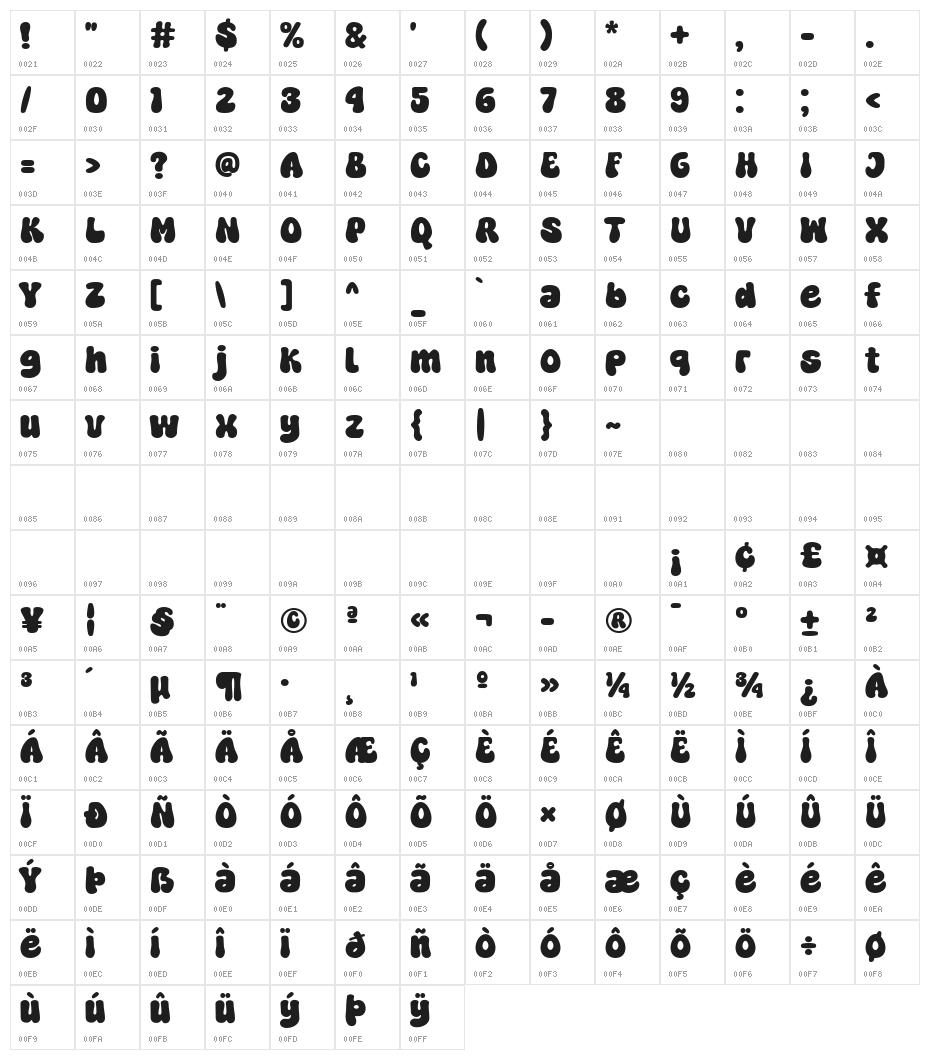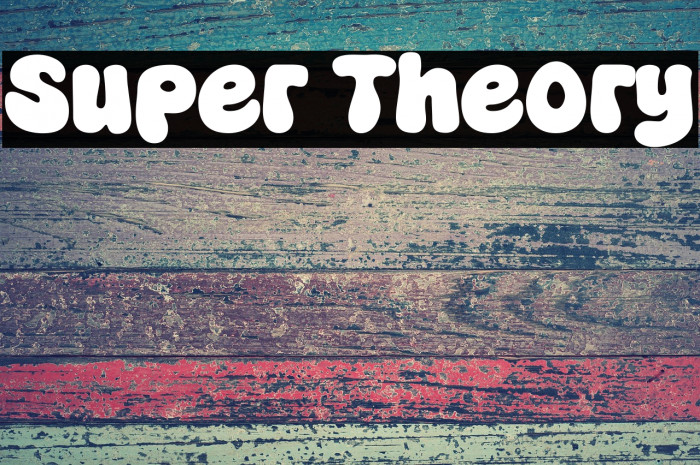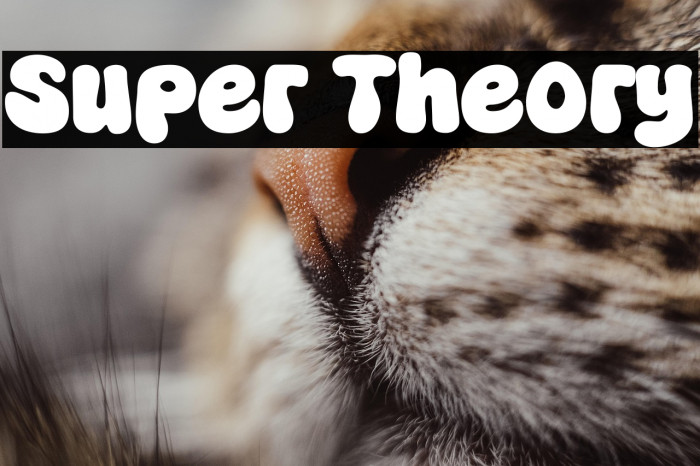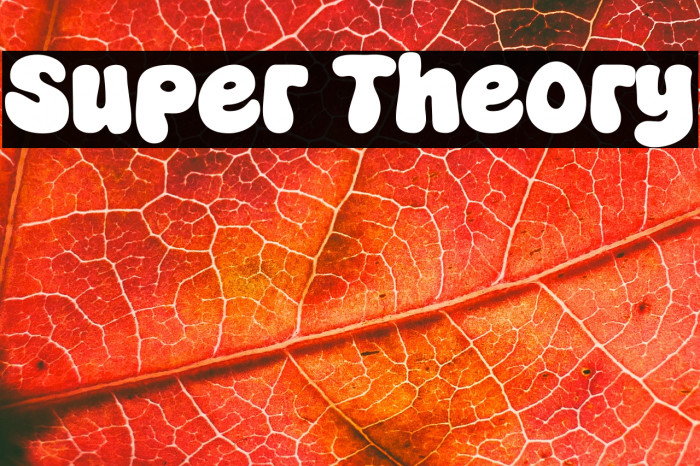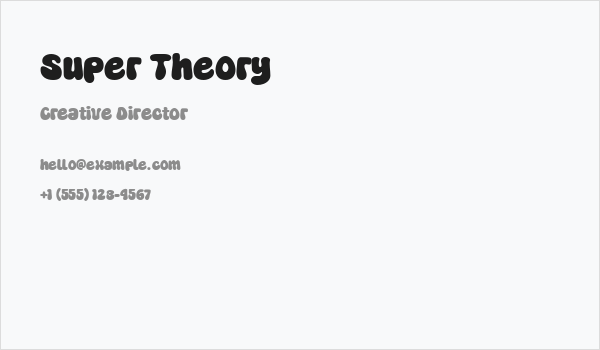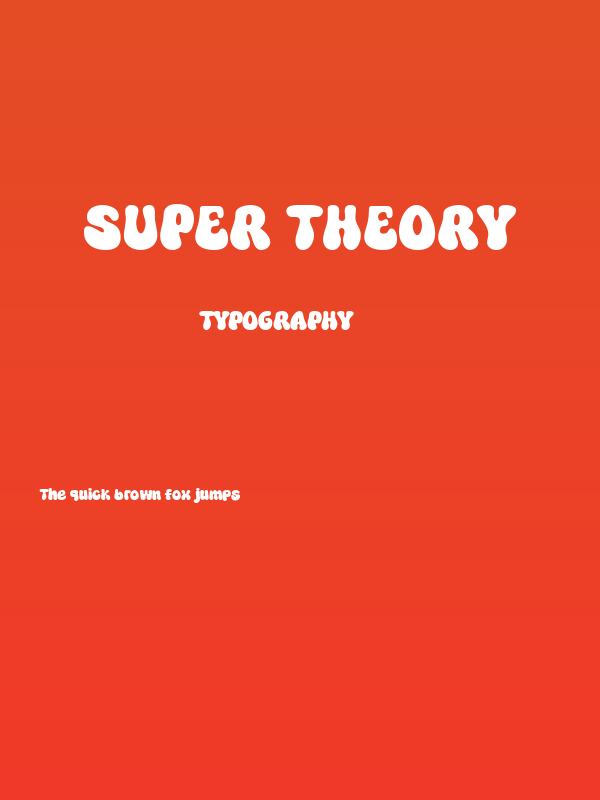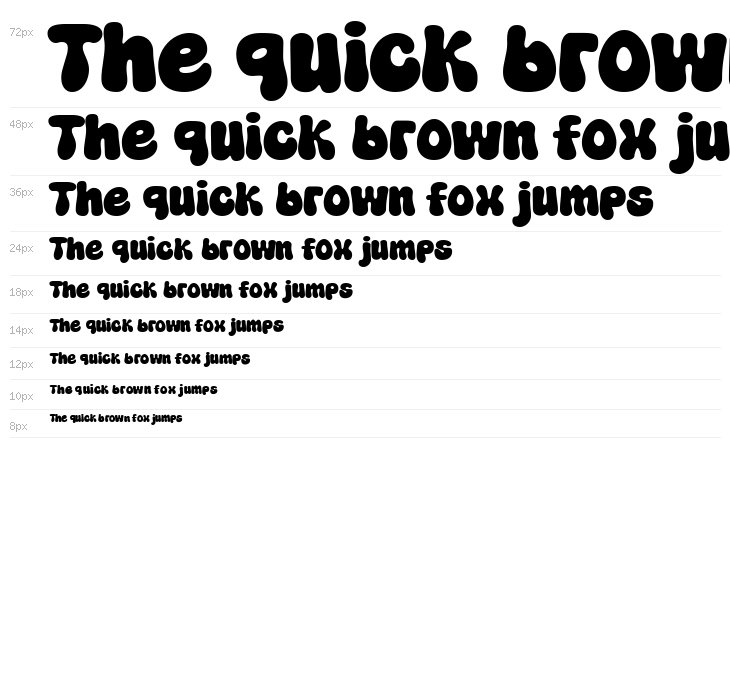
Super Theory Font
Super Theory Description
This font features a bold and playful design with rounded, bubbly characters that exude a sense of fun and whimsy. The letters are thick and substantial, creating a strong visual impact. The overall appearance is reminiscent of retro or vintage styles, with a modern twist. The characters are evenly spaced, contributing to a balanced and cohesive look. The font includes a full set of uppercase and lowercase letters, numbers, and a variety of special characters, making it versatile for different design needs. Its unique style makes it stand out, perfect for projects that require a touch of personality and flair.
| Overall Style | Playful, Retro, Modern |
| Proposed Projects | Ideal for children's books, playful branding, posters, and creative advertising. |